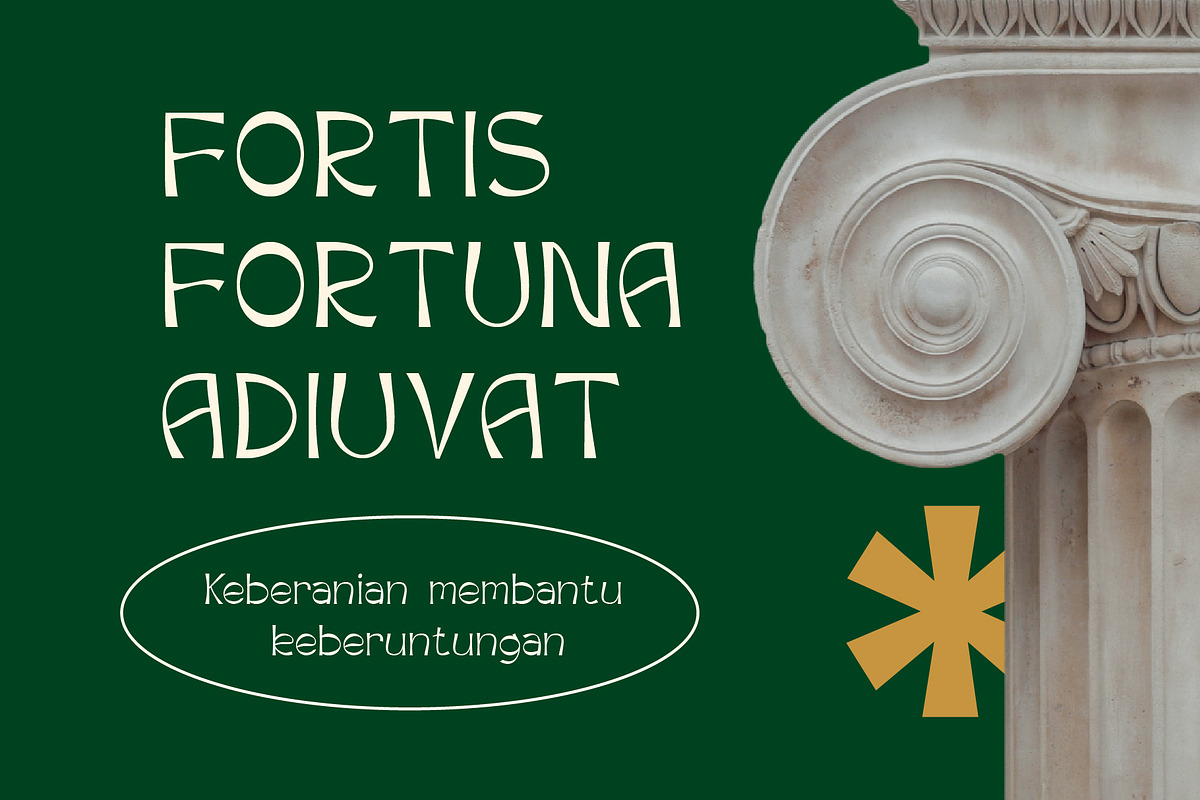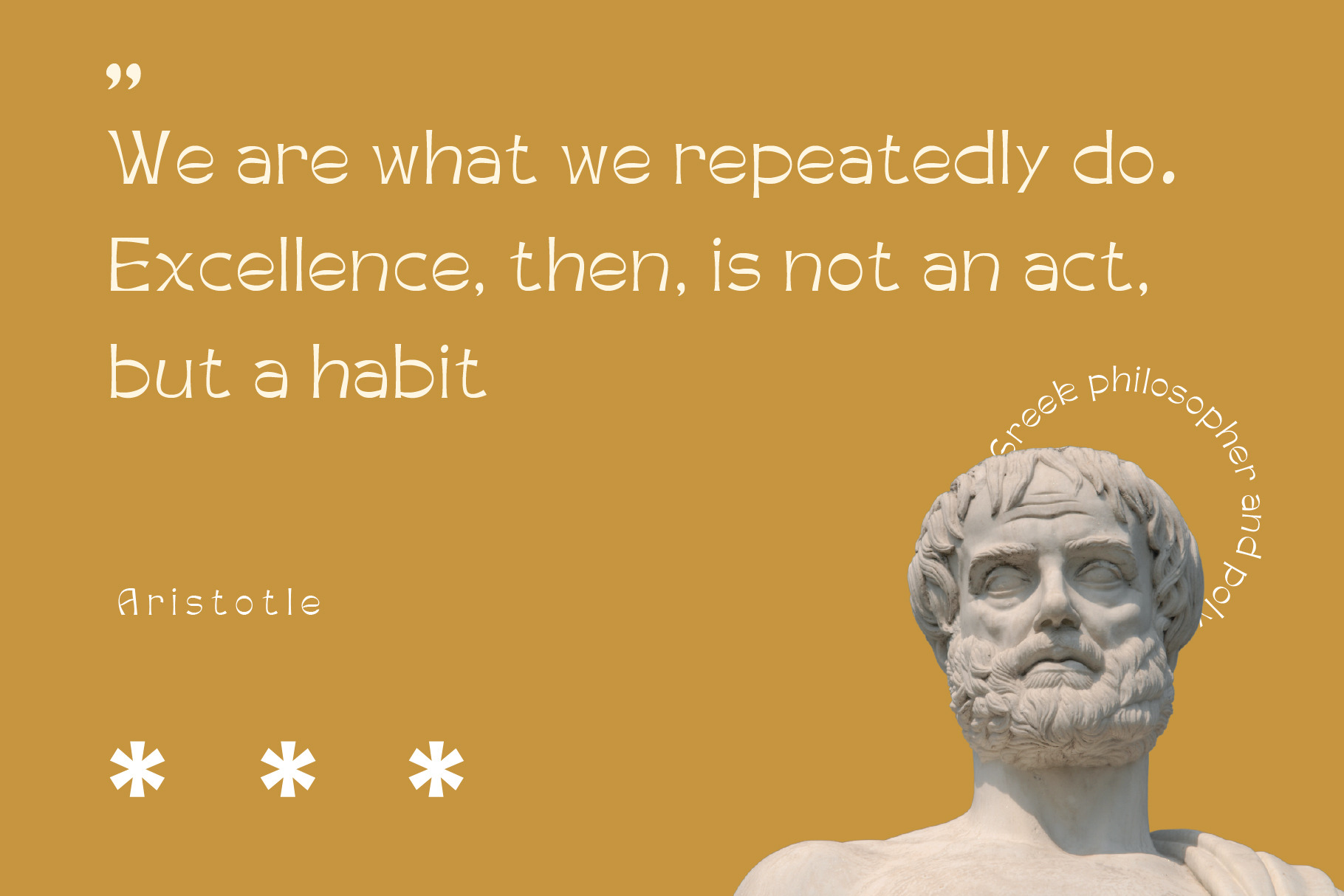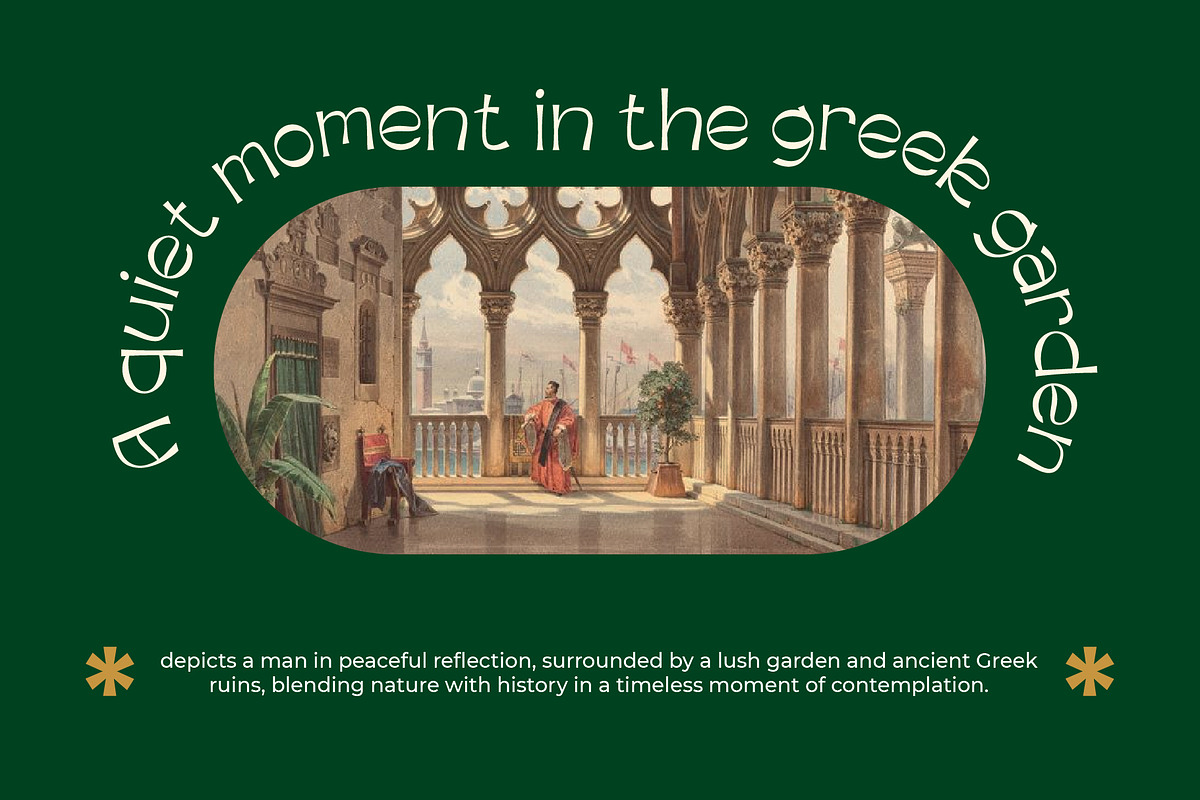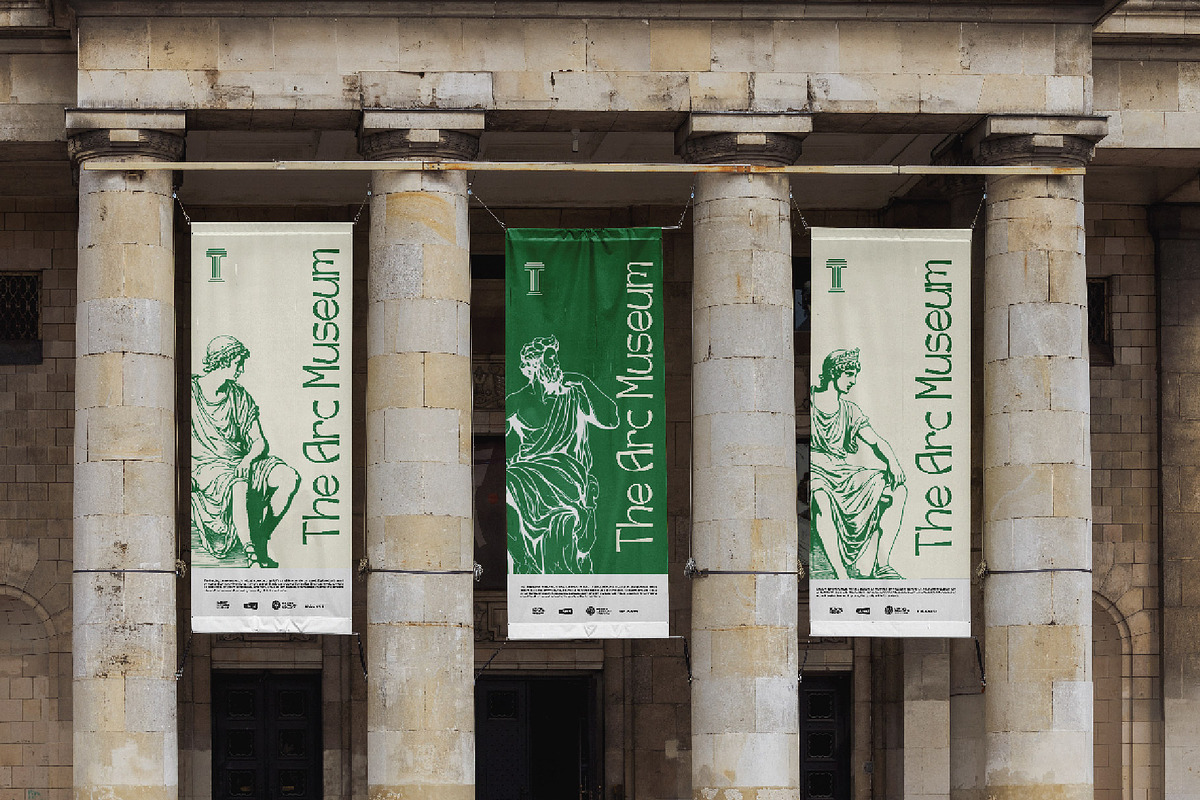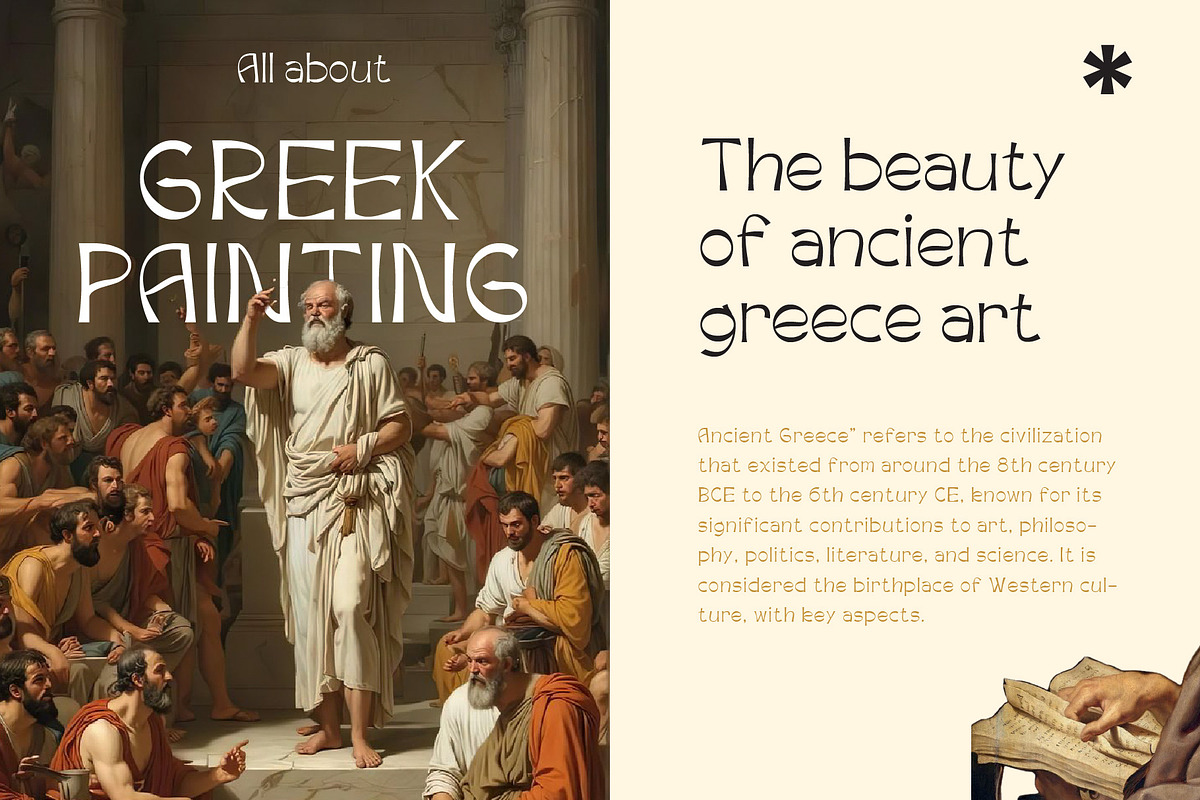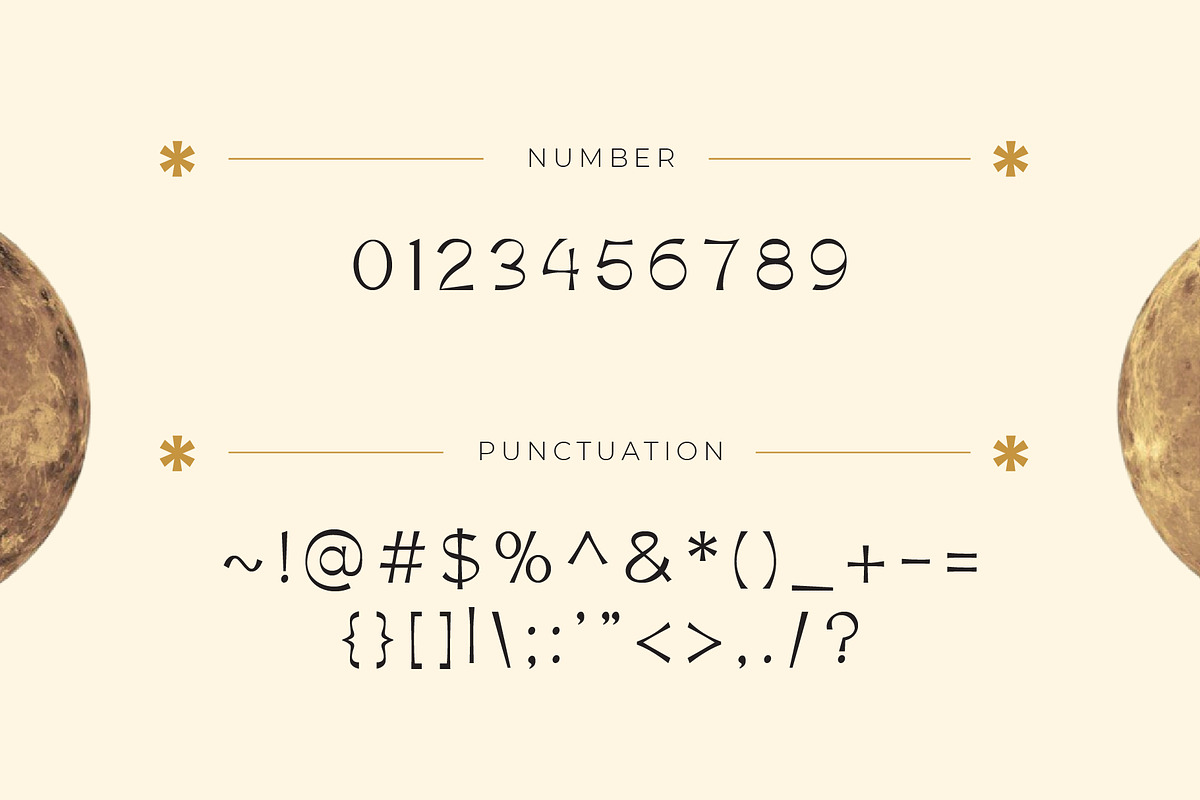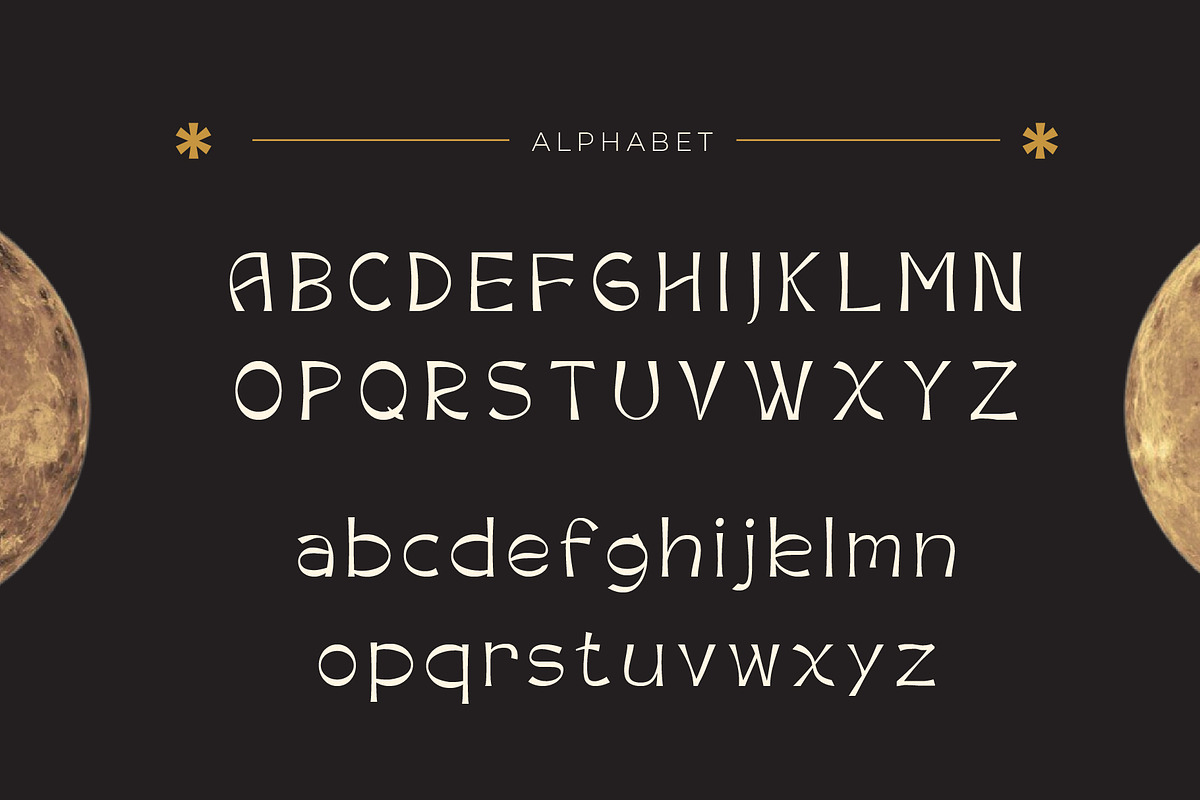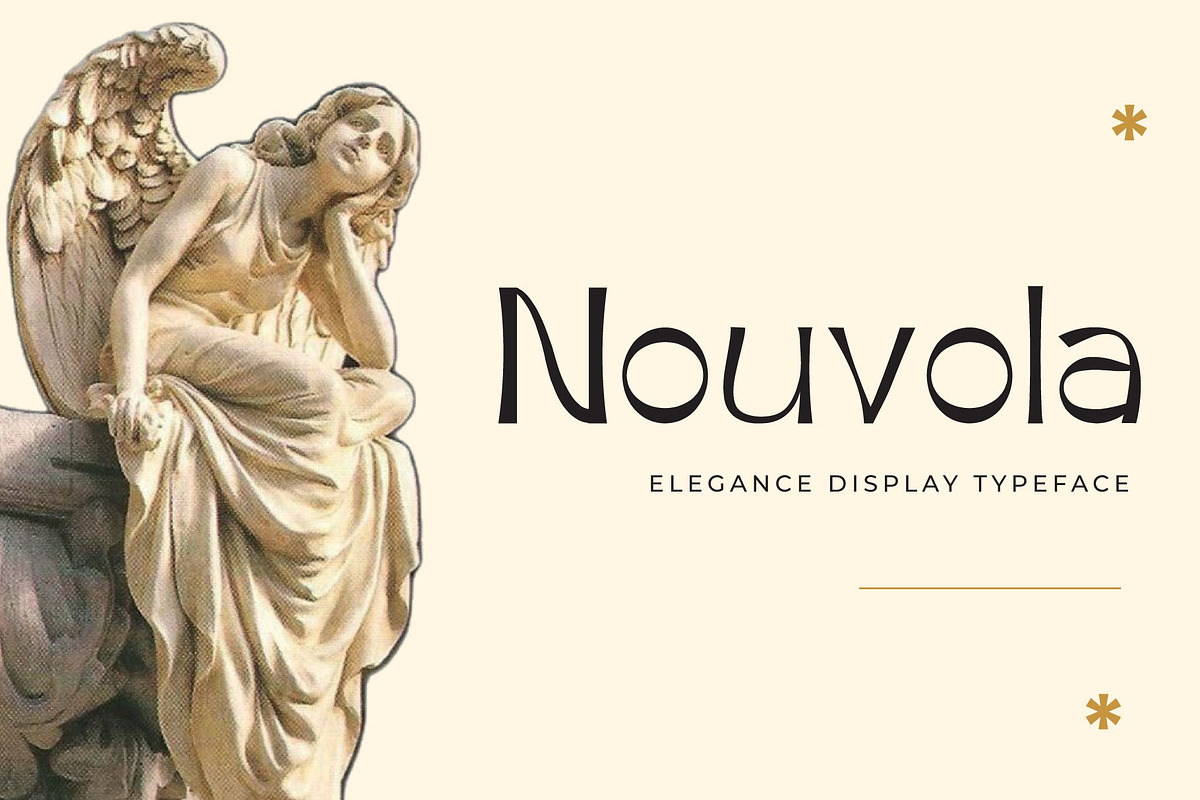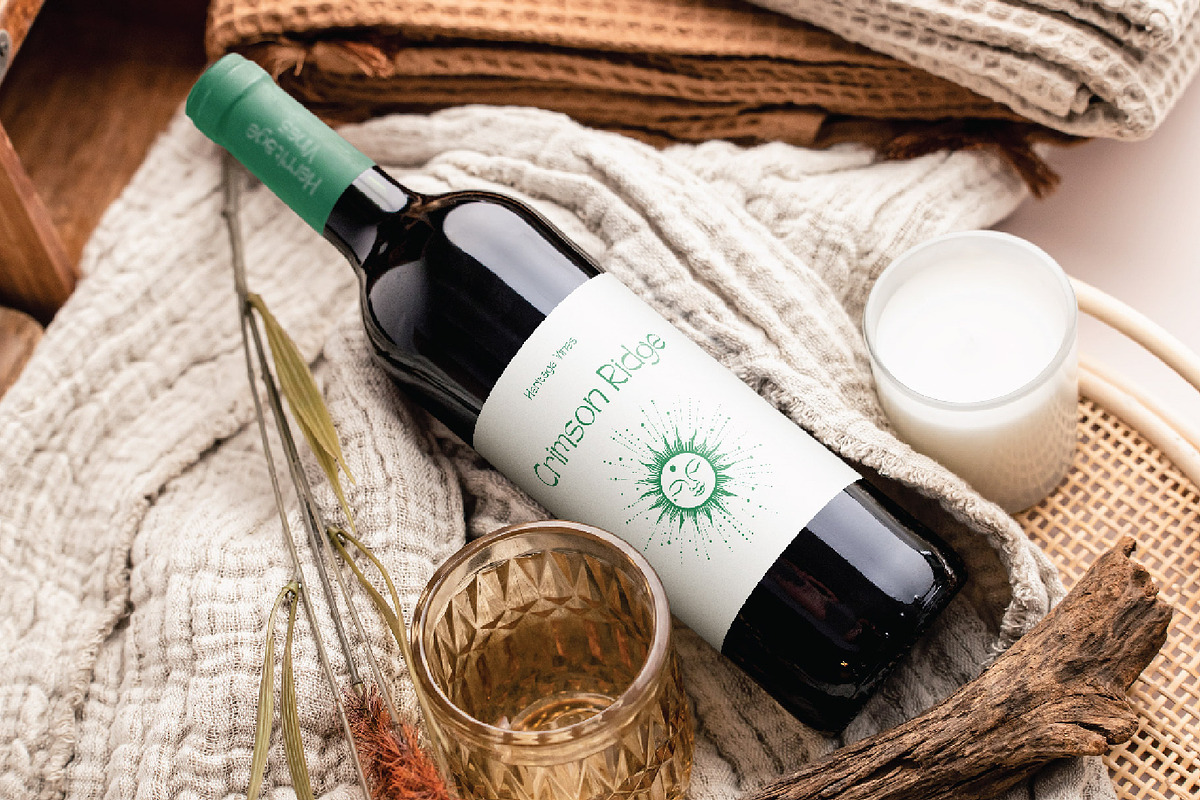
Nouvola Refined Typeface
Nouvola font is a refined typeface that inspired by the elegance of Art Nouveau style with a sleek and modern sensibility.
Inspired by the organic curves and unique details of the Nouveau style, Nouvola reimagines these elements with clean, balanced lines and contemporary proportions. Perfect for branding, editorial design, display font, or even packaging.
This font adds a timeless yet modern sophistication to any project, seamlessly blending classic artistry with present-day minimalism.
- Classical Poster Design
- Elegant and Timeless Branding
- Beauty Product and Beverage Packaging
- Clean Minimalist Layouts
- Art Nouveau-Inspired Graphics
- Historical Banner Design
- Minimalism Editorial Design
- Display Typography
Feature:
- Standard & Discretionary Ligatures